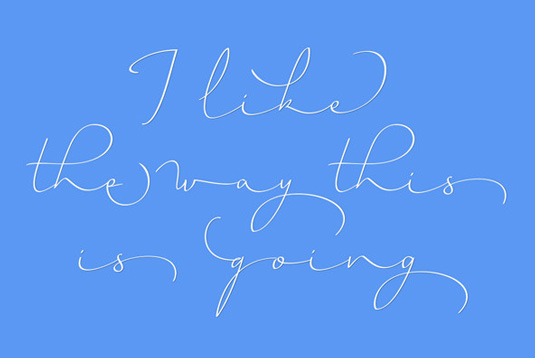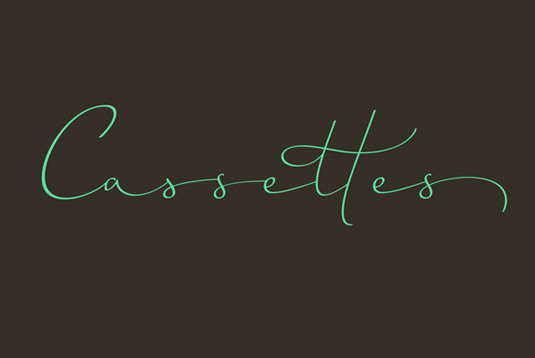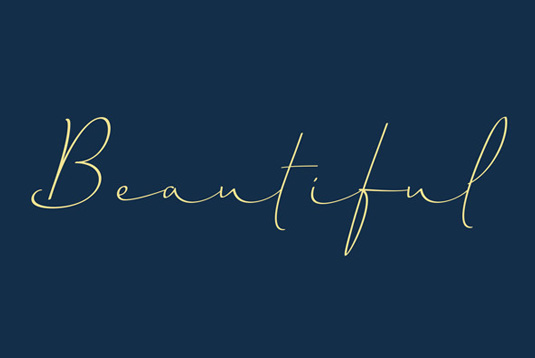
Font of the day: Horizontes Script
Horizontes Script by Panco Sassano
Elegant typeface Horizontes Script is the result of a personal, experimental calligraphy project by designer Panco Sassano. Available from font foundry YouWorkForThem, Horizontes Script is described as "relaxed, energic and very natural – an ideal font for titles and short texts".